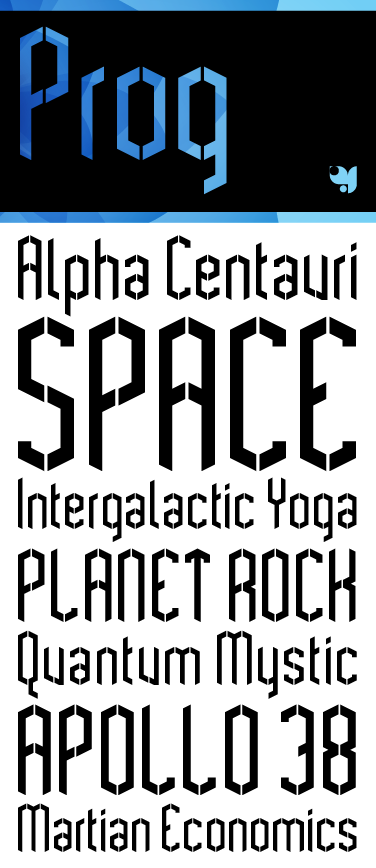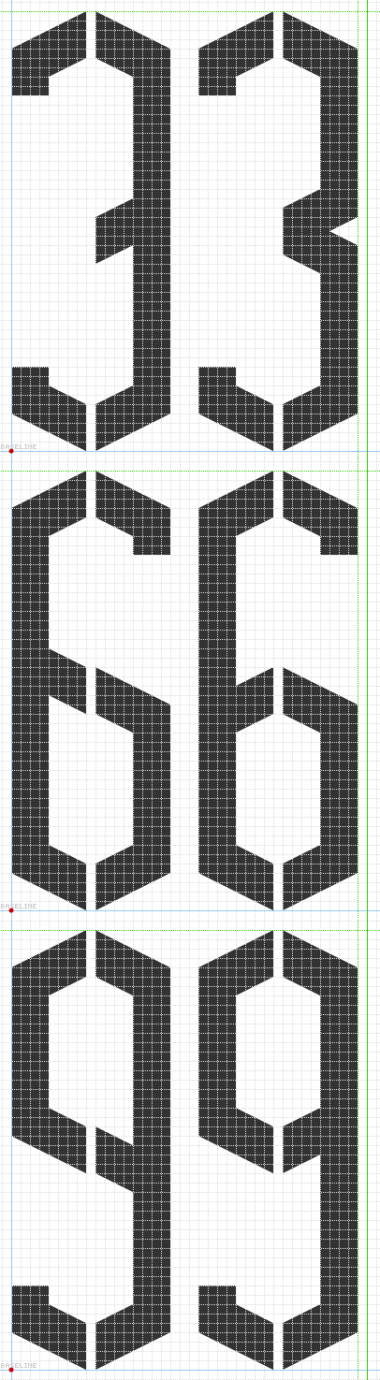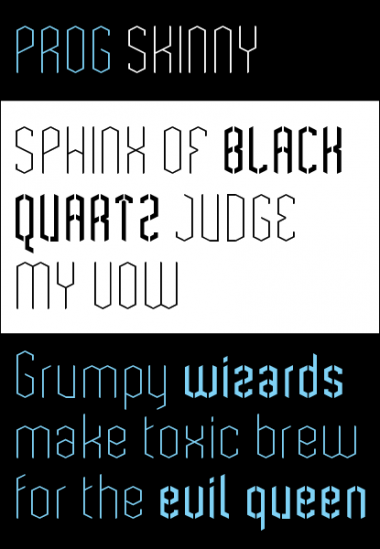
• Prog is a condensed, geometric, modular display typeface with a contemporary sci-fi aesthetic. The design draws from a multitude of influences. Specifically I was inspired by: mathematics, Japanese space-rock, the movie MOON (directed by David Bowie's kid), and the Funk King's wonderful molecular work here on FontStruct.
The principle building block for the design is an obtuse angle segment that's cloned, reflected, and rotated to create an entire letter. Mapping the technique to the whole typeface was a challenge and there are some compromises (see D and U). As is frequently the case with these strict modular exercises the T is the stand out ugly duckling.
This is great, Bravo!
you have definitely succeeded in creating a contemporary sci-fi typeface. this baby is cool and sleek. and love how some glyphs seem to defy space and break out of your established dimensions set by the grid. glad to be a source of inspiration as you have definitely done the same for me many times.
Prog really rocks! Mind you, I needed a session of Intergalactic Yoga after reading your Description :) 10/10
I took the liberty of trying out a few T alternatives ... you have probably already discounted them, but just in case ...
@p2pnut: Great T variations. I think I'm tracking in a similar vein. In FontLab, I'm able to create the T variation that I really want see here. It is essentially your third variation except with the consistent split down the middle. I've also applied the same technique to the Y. What do you think?
Great work afrojet. I like your new T.
May I offer a few suggestions for the numerals?
@aphoria: I'm instantly in love with that 3! I may have to make an alternate E with the same treatment. The 6 & 9 alternatives I like but am not totally convinced on. I think I could be persuaded though. For your consideration: three different solutions for the 6 & 9. The left is Aphoria's suggestion the middle is Aphoria's suggestion with a bit more height added and the left is the current version. Anyone else care to weigh in with their opinion?
All three work. It's only a stylistic choice. Aesthetically, I find the third set the most pleasing, but the 3D effect is readily visible in the first two.
Two T alternatives possibly worth exploring: 1.Your current M without the outer stems. 2.Paste M and A into a single glyph, erase everything except the right M and left A stems (plus connected top horizontal crossbars) for a double stem T. May work for the Y too. (or not, most likely). Just an idea for you to try (or discard) at your discretion.
Not that it was in question, but might I suggest a reversal of the diagonal for the Z...meaning the right vertical stem dips down, then diagonal sea-saw up (left up, right down), before dipping down to form the left vertical stem. In other words, like an S, but with the vertical bars transposed.
Super set, in any case. Especially nice are the vertical bar diagonal terminals. Nice sample, as usual.
@afrojet I'm glad you like the 3. It would work well with the E too...don't know why I missed that.
I considered raising/lowering the middle of the 6 and 9, but opted for consistency. I now see I should have followed my gut. Your updates to my 6 and 9 and better.
Comment by aphoria 18th february 2010
Your T is great - as is the Y ... can you achieve that in FS?
Comment by p2pnut 19th february 2010
Thanks for all the continued suggestions folks. Very helpful and much appreciated.
@minimum: it took me a minute to visualize what you were getting at but I understand it now and will give it a try.
@p2pnut: I don't think at this scale it's possible to achieve the desired result for the T and the Y. Perhaps if I went higher res I could do it. But I think what I'll do is fix those letters in FontLab. There's also a few other tweaks I want to make that fall outside the realm of FontStruct. If/when I do that, I'll post the new file up here in the comments for download.
Comment by afrojet 19th february 2010
Experimenting with adding an ultra-light weight to the Prog family in addition to some non-stencil versions.
Comment by afrojet 21st february 2010
There must be something in the air ... I'm working on a 'skinny' design at the moment :)
Meek, somebody, top pick this! An amazing amount of collaboration in such a short span of days...
Congratulations! FontStruct Staff have deemed your FontStruction worthy of special mention. “Prog” is now a Top Pick.